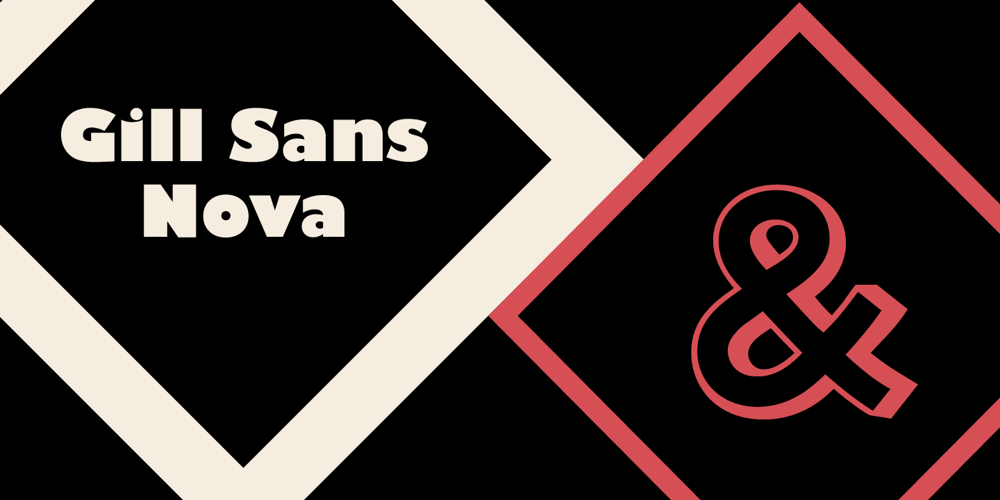
Gill Sans Nova Font Family was designed by Eric Gill, George Ryan and published by Monotype. Gill Sans Nova contains 43 styles and family package options. The Gill Sans® Nova typeface, by Monotype Studio designer George Ryan, expands the much-loved Gill Sans family from 18 to 43 fonts and features a coordinated range of roman and condensed designs. Several new display fonts are available, including a suite of six inline weights, shadowed outline fonts that were never digitized and Gill Sans Nova Deco that was previously withdrawn from the Monotype library. A variety of OpenType® features are supported that make it possible to include experimental characters from different points in Gill Sans’s long history, including pointed diagonals on ‘A’, ‘V’ and ‘W’ and alternatives for ‘b’, ‘d’, ‘p’ and ‘q.’ Proportional figures are also available as an alternative to the tabular designs. The Gill Sans Nova family has a large character set that supports Latin, Greek and Cyrillic languages. The display weights support Latin only. “Gill Sans was fast to strike a chord with people after its initial 1928 release and quickly became popular,” explains Ryan. “It’s been adapted for every publishing technology, from mechanical typesetting to digital imaging – always receiving the best treatment from Monotype in each iteration. This is especially true with all that we’ve added to the new series, while still retaining the familiarity of Gill Sans. My goal was to ensure clarity across digital environments, add missing weights, and bring more personality to the family with new display fonts, as well as Gill-inspired alternate characters.” The Gill Sans Nova typeface family is part of the new Eric Gill Series, drawing on Monotype’s heritage to remaster and expand and revitalize Eric Gill’s body of work, with more weights, more characters and more languages to meet a wide range of design requirements. The Series also brings to life new elements inspired by some of Gill’s unreleased work, recently discovered in Monotype’s archive of original typeface drawings, designer correspondence and documents from the last century.